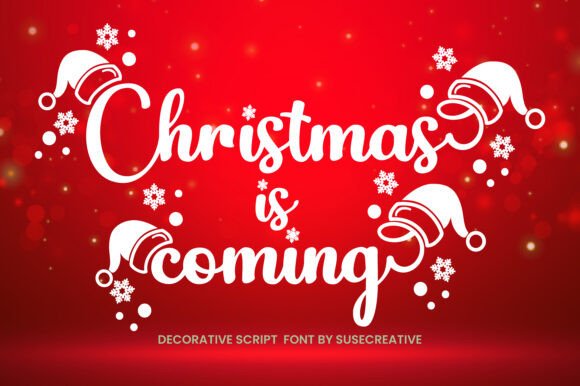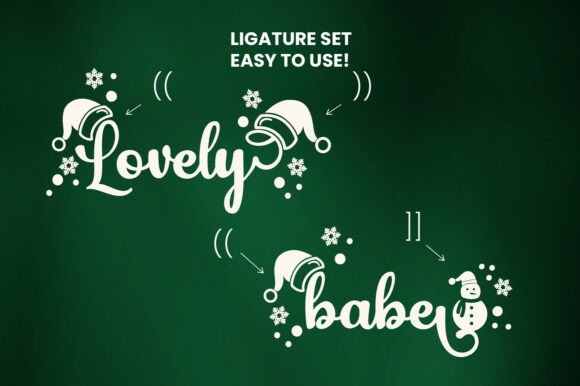
Christmas is Coming Font
Christmas is Coming Font is a festive decorative script perfect for holiday designs. Featuring playful swirls, snowflakes, and Santa hats, it’s ideal for Christmas cards, t-shirts, posters, and gifts. The font evokes joy and warmth, making it perfect for all your seasonal projects.